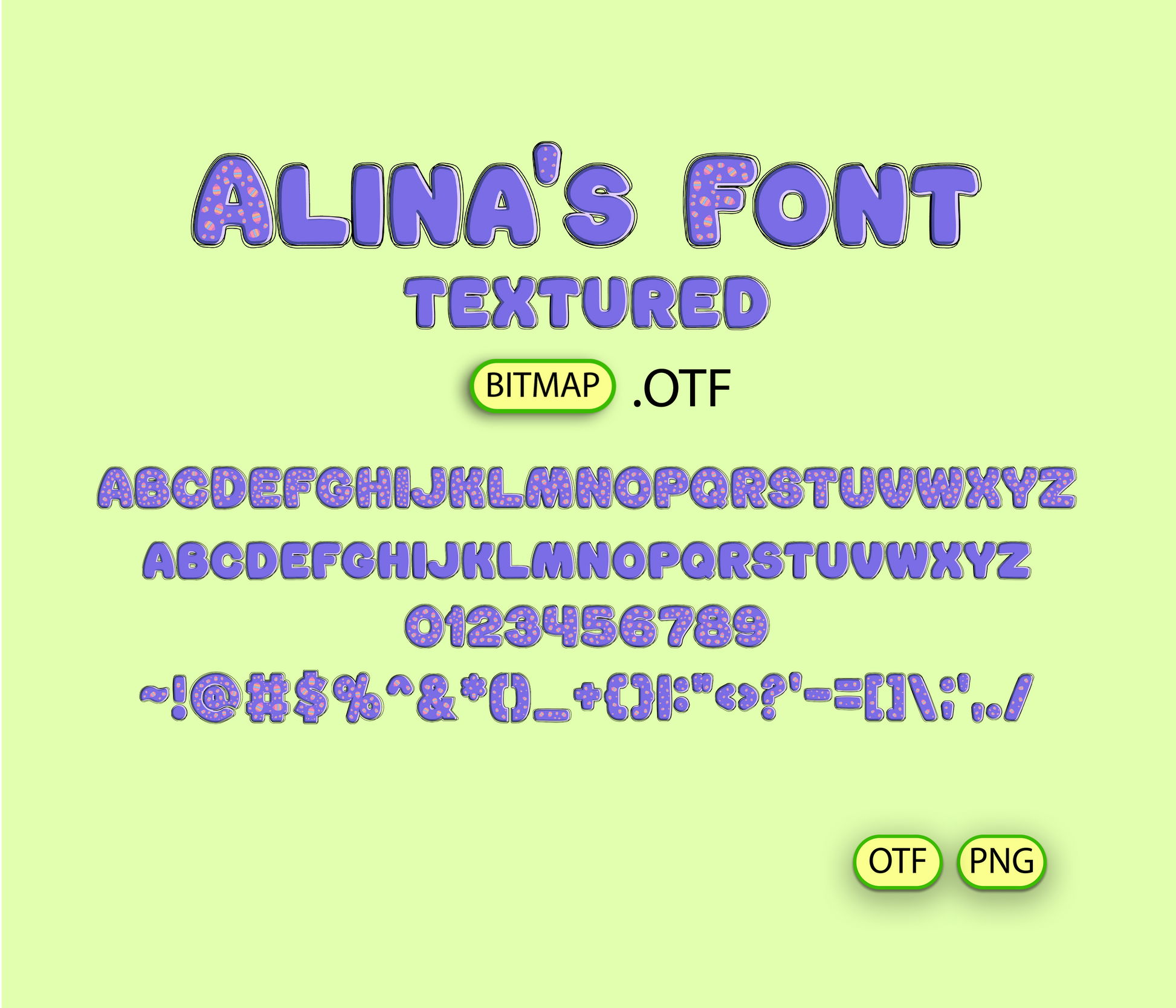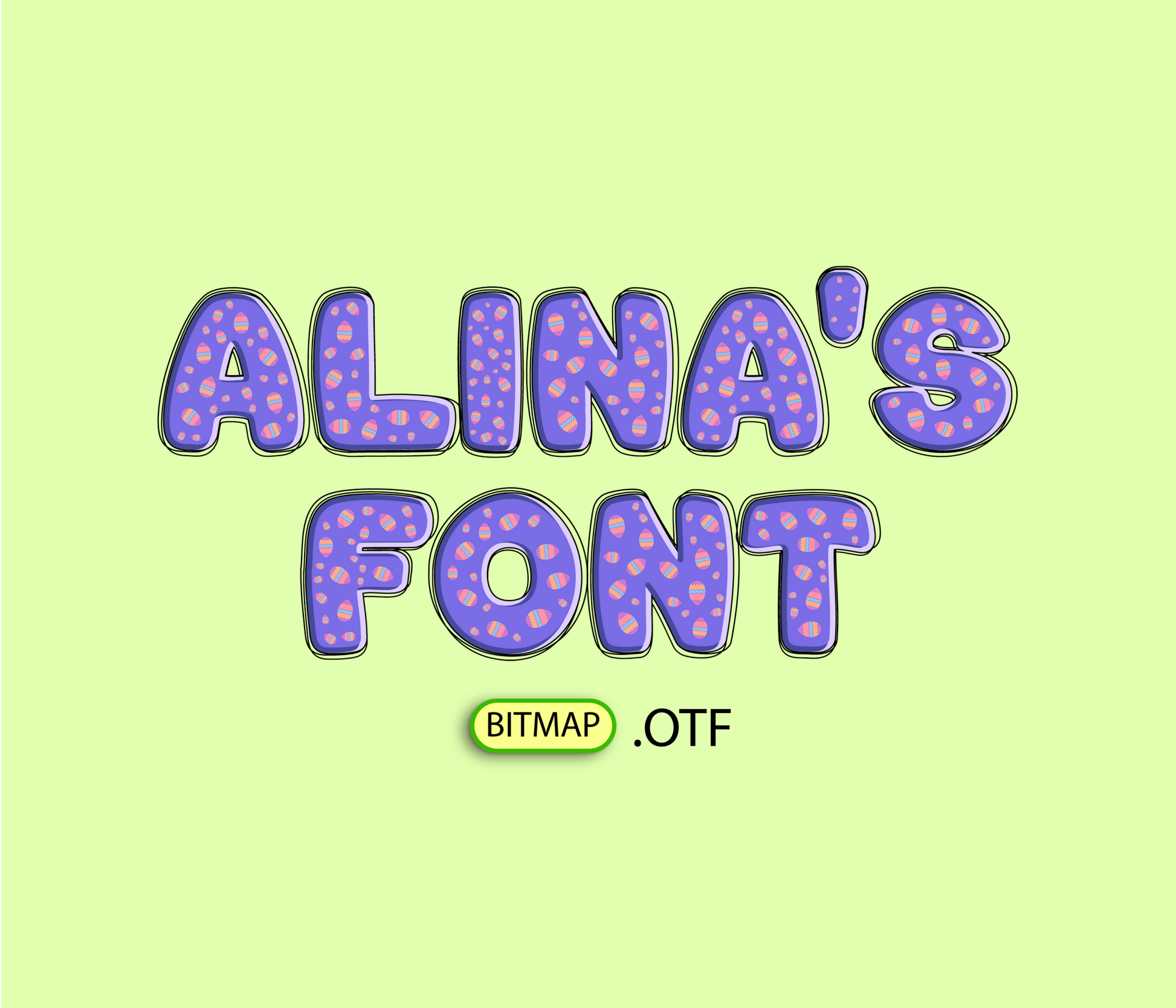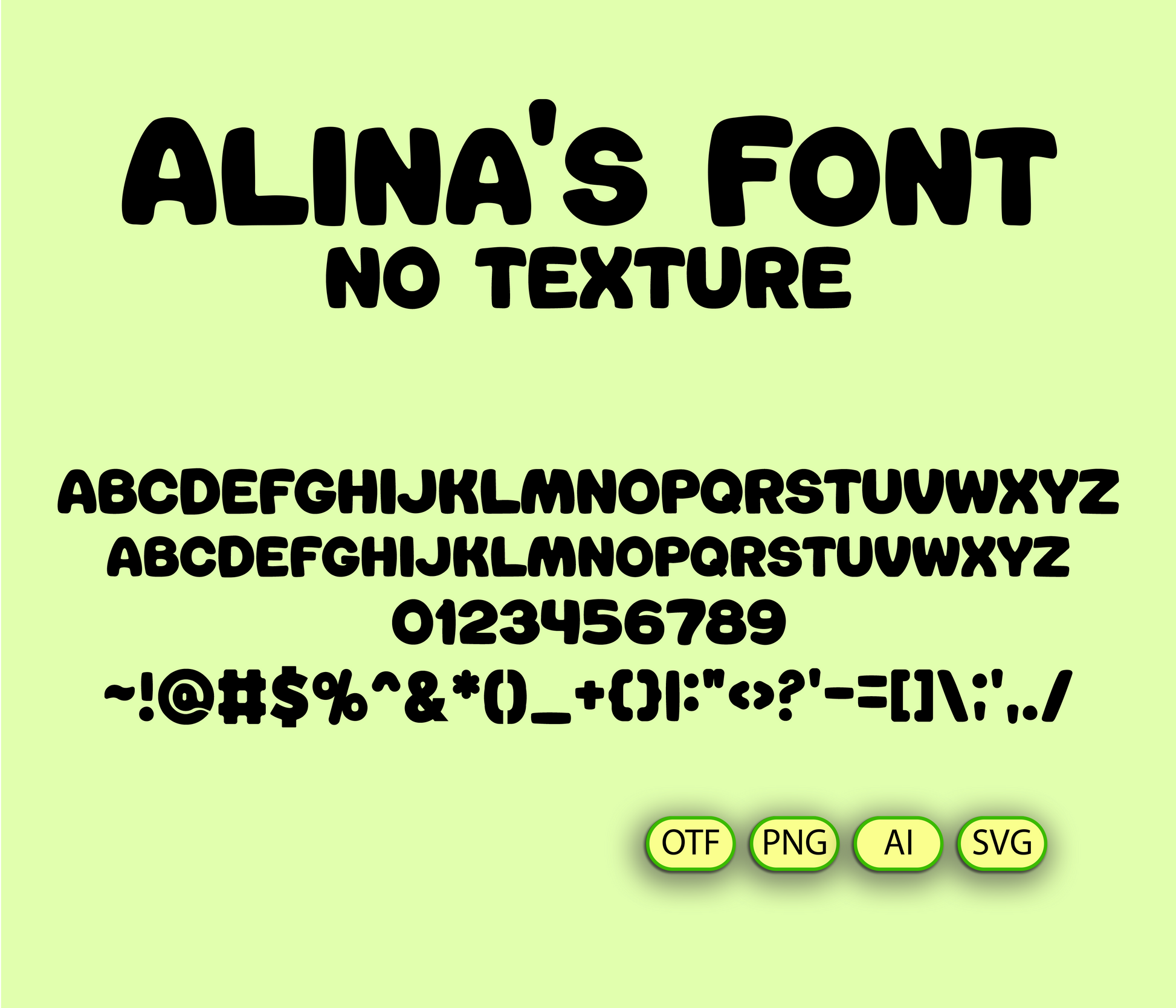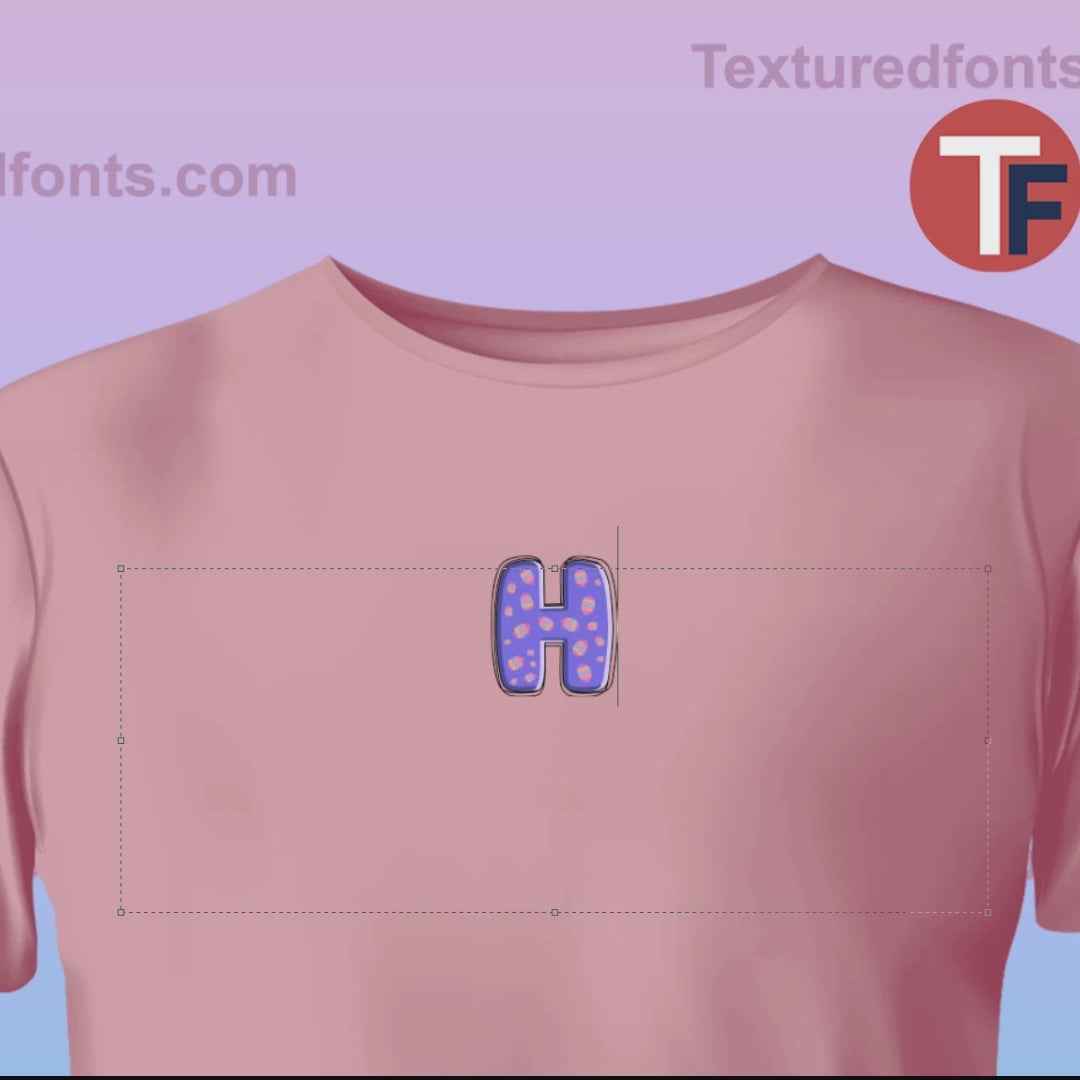
Spring Holiday Vibrant Easter Pattern Font
Spring Holiday Font Vibrant Easter Pattern
Welcome to the vibrant and joyous world of our Easter font, a delightful typeface that captures the essence of the springtime celebration known for its themes of renewal, hope, and joy. This font is meticulously crafted to embody the festive spirit of Easter, featuring playful characters that draw inspiration from the holiday's most beloved symbols: Easter eggs, bunnies, spring flowers, and pastel colors. Whether you're designing invitations for an Easter brunch, creating engaging educational materials about the holiday's traditions, or crafting social media posts to spread the joy of the season, the Easter font adds a touch of spring and warmth to your projects.
Optimized for Canva, the Easter font ensures that users of all design backgrounds can seamlessly incorporate the spirit of the season into their digital designs. This font is a go-to choice for anyone in need of a cheerful, holiday-inspired typeface that combines readability with festive flair, making it suitable for a wide range of applications from marketing campaigns to personal projects.
Recognizing the varied needs of our users, we've included a no-texture version of the Easter font, guaranteeing compatibility across all software and making it a versatile option for both digital and print mediums. This adaptability allows the Easter font to enhance your designs with its clean and unassuming style, regardless of the platform or medium. Featuring a comprehensive character set and user-friendly design, the Easter font is accessible to everyone, allowing both novices and professionals to bring their Easter-inspired visions to life with ease. Whether you're aiming for a design that's whimsical and playful or elegant and understated, our Easter font, complete with its no-texture variant, is equipped to elevate your creations with the joy, hope, and renewal that Easter embodies.